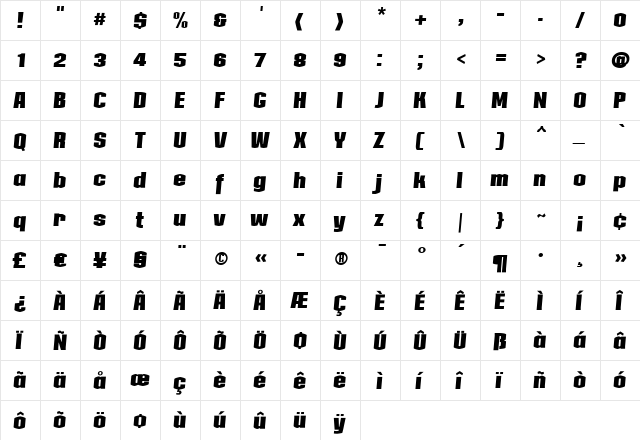
Collos Regular
Design Context for Collos Typeface
Collos offers clean, dependable letterforms without strong stylistic allegiance, making it a practical choice for designers who need flexibility.
Pro Tip: Use Collos in both headline and body roles to test its range before committing to a single application.